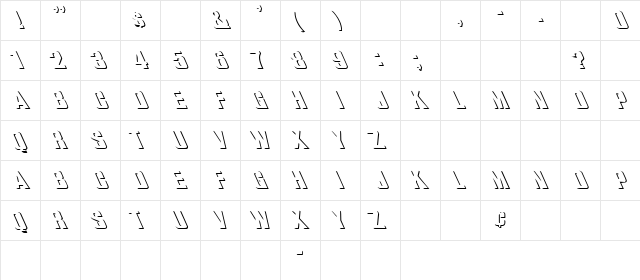
Shadow Box 1 Regular
Design Context for Shadow Box 1 Typeface
Shadow Box 1 is built around its visual character rather than neutral utility — its distinctive forms are designed to make an impression at display sizes.
Font Pairing: Pair with a clean neutral sans-serif for body copy to let Shadow Box 1's character lead without overwhelming the composition.
Pro Tip: Use Shadow Box 1 exclusively at display sizes — it was designed to be seen, not read at length. Let a neutral companion handle body copy.